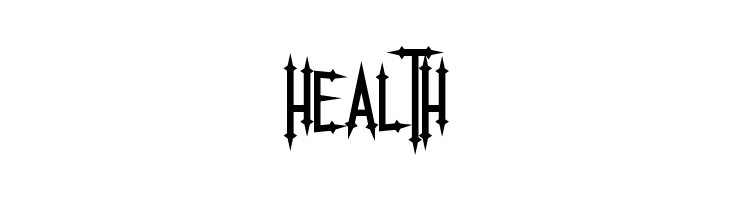
NekroKids Font
Font by Sinister Visions - Chad Savage - www.sinisterfonts.com
A bold, gothic-inspired font with sharp, angular edges and dramatic flair.